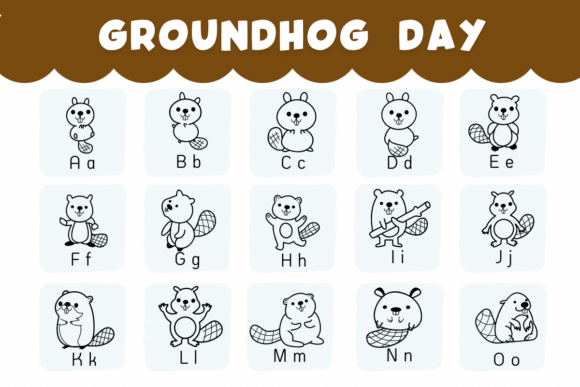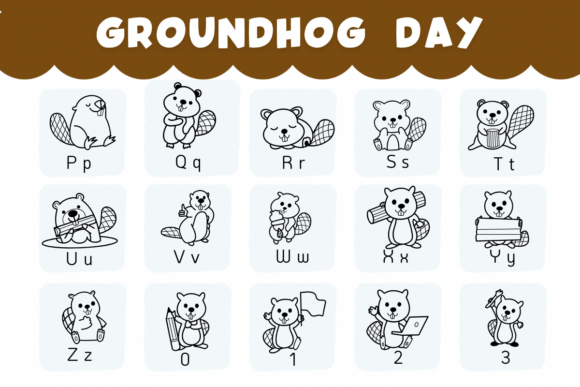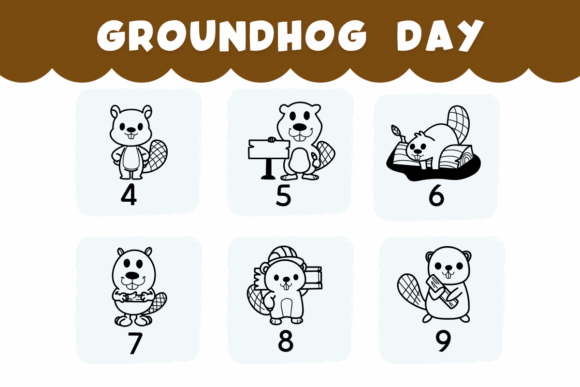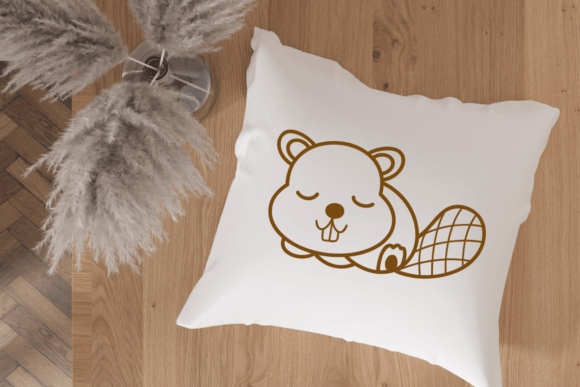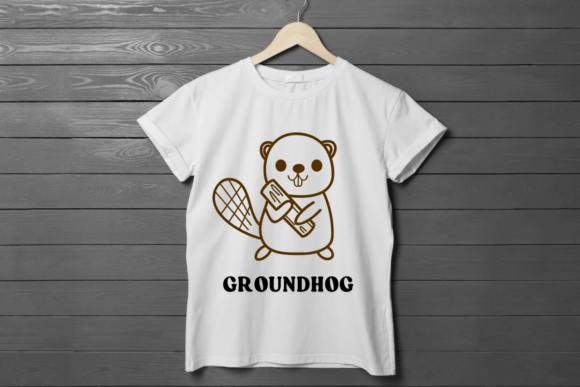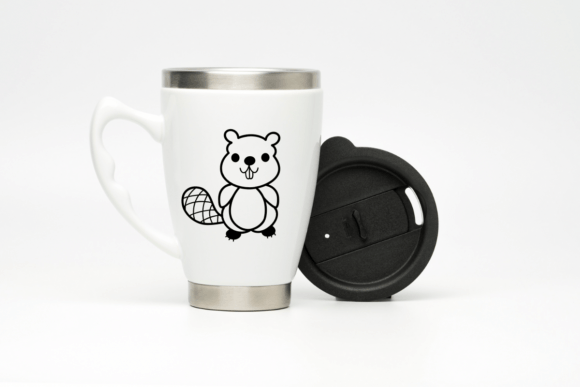
Groundhog Day Font: Add a Touch of Whimsy to Your Designs with Groundhog Doodle
Are you looking for a fun and playful font to add a touch of whimsy to your designs? Look no further than the Groundhog Day Font, also known as Groundhog Doodle. This unique dingbat font is filled with cute groundhog images, perfect for designers, crafters, and anyone looking to add a bit of personality to their projects.
What is Groundhog Doodle?
Groundhog Doodle is a special font that features adorable groundhog illustrations instead of regular letters. This means that when you type, you’ll get cute groundhog images instead of boring old text. It’s the perfect way to add some fun and personality to your designs, whether you’re working on a craft project, creating invitations, or designing social media graphics.
Features of Groundhog Day Font
So, what makes Groundhog Doodle so special? Here are just a few of its features:
- Cute groundhog illustrations: Each letter is replaced with a unique and adorable groundhog image, making it perfect for groundhog-themed projects or just adding a touch of whimsy to your designs.
- Dingbat font: Groundhog Doodle is a dingbat font, which means it’s made up of images rather than regular letters. This makes it perfect for crafts, invitations, and other projects where you want to add a bit of visual interest.
- Perfect for crafts and invitations: Groundhog Doodle is ideal for crafters, scrapbookers, and anyone who loves making their own invitations and cards. It’s also great for designers who want to add a bit of personality to their work.
Uses for Groundhog Day Font
So, what can you use Groundhog Doodle for? The possibilities are endless! Here are a few ideas to get you started:
- Craft projects: Use Groundhog Doodle to add a touch of whimsy to your craft projects, such as scrapbooking, card making, and DIY gifts.
- Invitations: Create adorable invitations for parties, events, and gatherings using Groundhog Doodle.
- Social media graphics: Add a bit of personality to your social media graphics, such as Facebook posts, Instagram stories, and Twitter headers.
- Signs and banners: Use Groundhog Doodle to create eye-catching signs and banners for events, sales, and promotions.
- Experiment with different sizes: Try using Groundhog Doodle in different sizes to see how it looks in various contexts.
- Combine with other fonts: Mix Groundhog Doodle with other fonts to create interesting and unique typography.
- Use for headlines and titles: Groundhog Doodle is perfect for headlines and titles, where you want to grab attention and add some personality.
Groundhog Day Font, also known as Groundhog Doodle, is a fun and playful dingbat font that’s perfect for adding a touch of whimsy to your designs. With its cute groundhog illustrations and easy-to-use design, it’s ideal for designers, crafters, and anyone looking to add a bit of personality to their projects. So why not give it a try and see how you can use Groundhog Doodle to take your designs to the next level?
Get ready to add some groundhog fun to your designs!